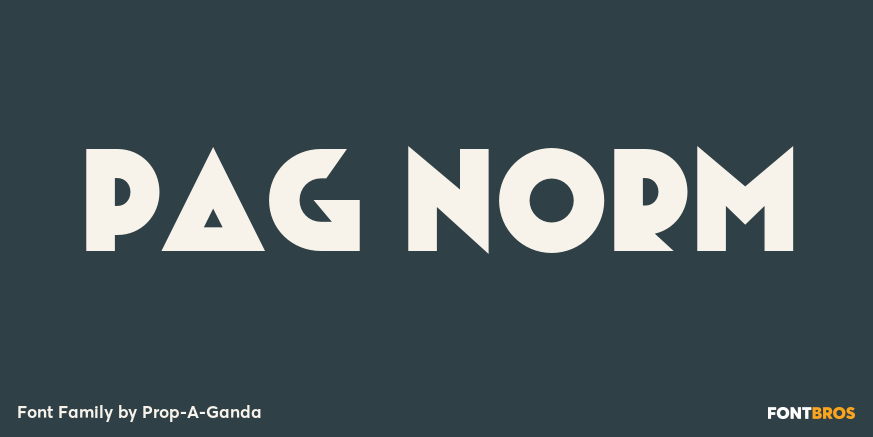
HomeFont BrosArt Deco (1910-1935)PAG Norm Art Deco (1910-1935)Sans Serif PAG Norm FacebookXPinterestWhatsApp 1 of 1 About PAG Norm Inspired by and based on retro propaganda posters, movie posters, shopfront lettering & advertisements in the early 20th century. This is perfect font for your retrostyle project.  DOWNLOAD ON FONT BROSThis font is sold and delivered by Font Bros. Font Canyon may earn a commission if you buy through this link. People also explored Dashing Font Goatherdam Font Gisella Anistasy Font Love Yeah Welcome Lovely Sweet Sweety Font Black Font Neon Blue Gildan 5000 T Shirt Mockup Mommy Monogram Font 314 0 TagsPAG Norm Font Previous articleBerliner FrakturNext articleKeepsake Monograms LEAVE A REPLY Cancel reply Comment: Please enter your comment! Name:* Please enter your name here Email:* You have entered an incorrect email address! Please enter your email address here Website: Save my name, email, and website in this browser for the next time I comment. Personal Use Free UseYourImagination Personal Use Free Read more about this font Knox Personal Use Free Read more about this font Market Love Personal Use Free Read more about this font Rollayka Personal Use Free Read more about this font BLOG Using Fonts in Digital Marketing: Tips to Strengthen Your Brand Identity In the realm of digital marketing, every visual element plays a crucial role in shaping a brand's identity, and fonts are no exception. The... Transform Your Website: Elevate Your Typography with 7 Best Web Font Generators To increase your work productivity, choose the most readable fonts. Modern Sans-Serif Fonts That Brands Love in 2025